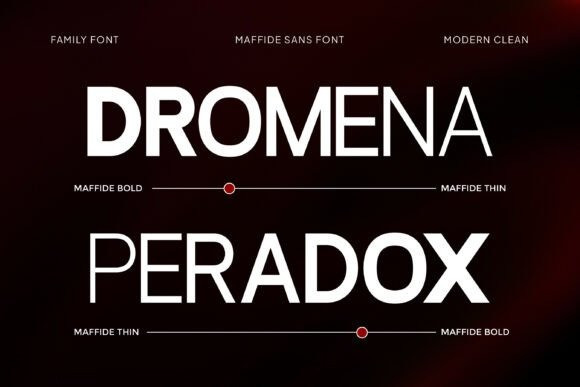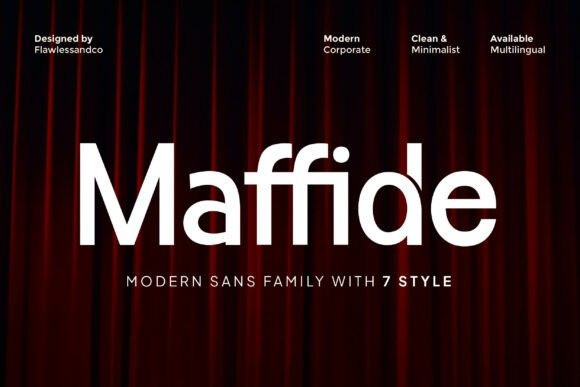
Maffide Font
Maffide Font is a modern sans serif family font designed to deliver a clean, professional, and contemporary look. With its balanced proportions and smooth letterforms, Maffide offers excellent readability while maintaining a strong visual presence.
The family includes 7 versatile styles, making it easy to build a clear hierarchy and consistent layouts across different design needs. Perfectly suited for modern corporate use, Maffide works seamlessly in branding, logos, editorial layouts, websites, presentations, and marketing materials.